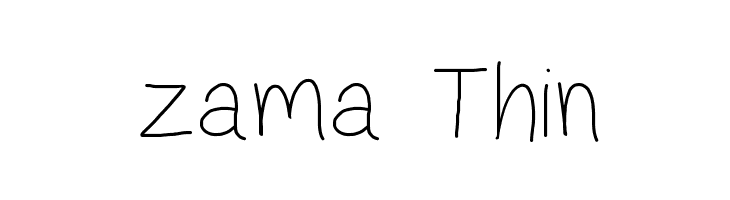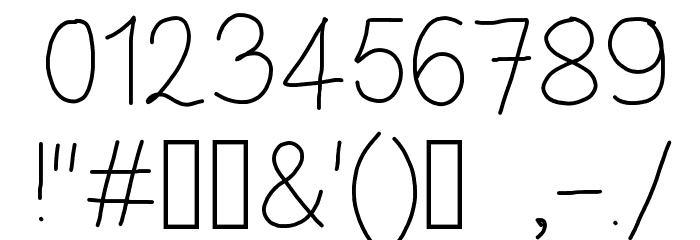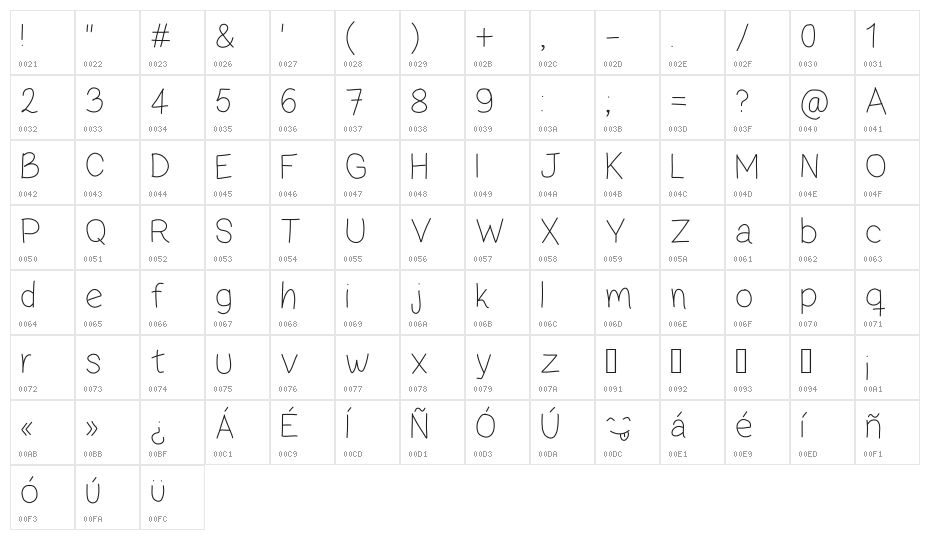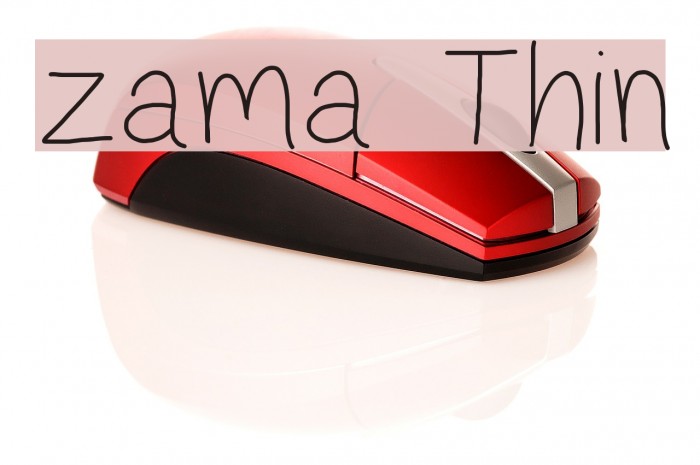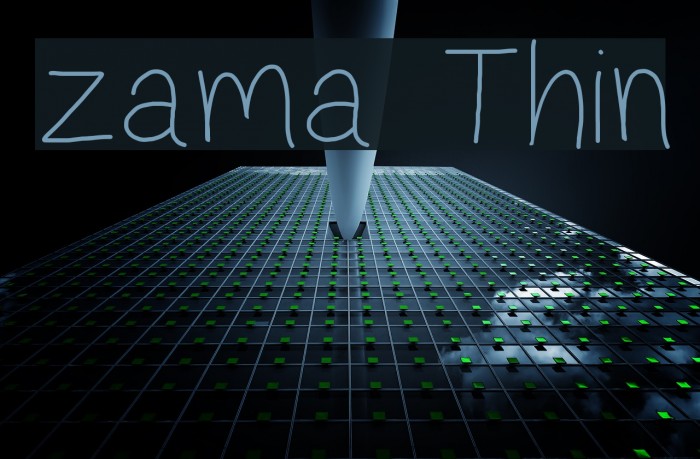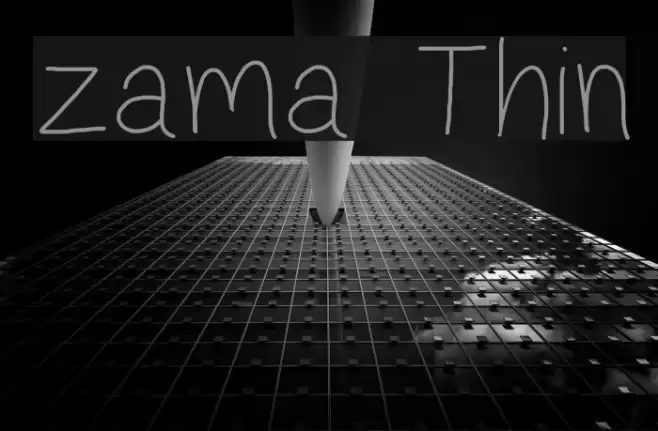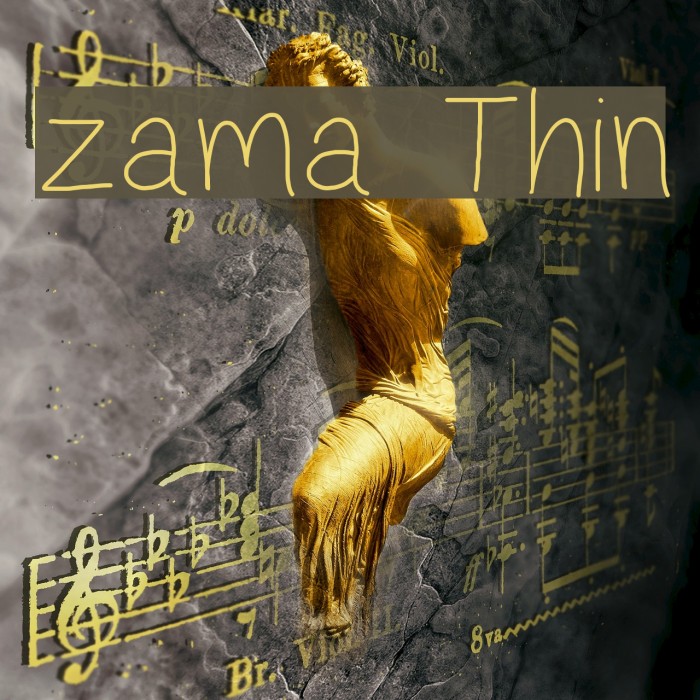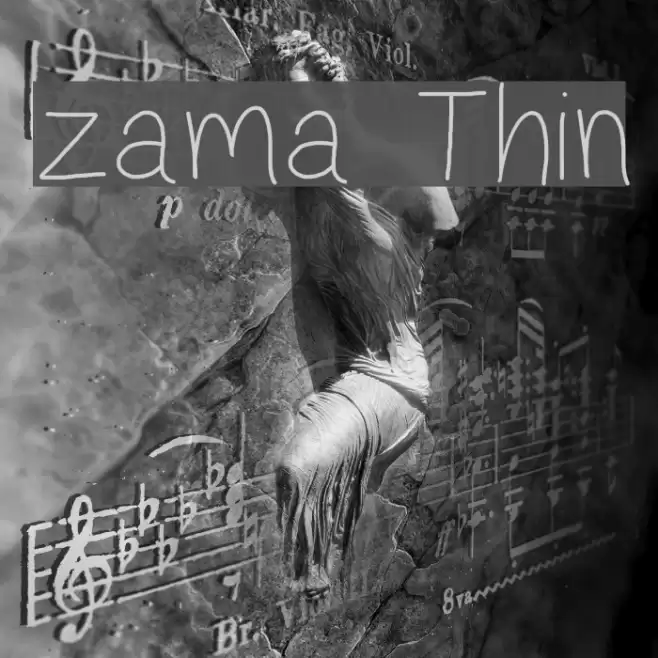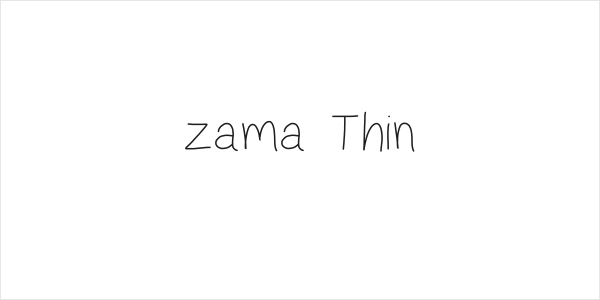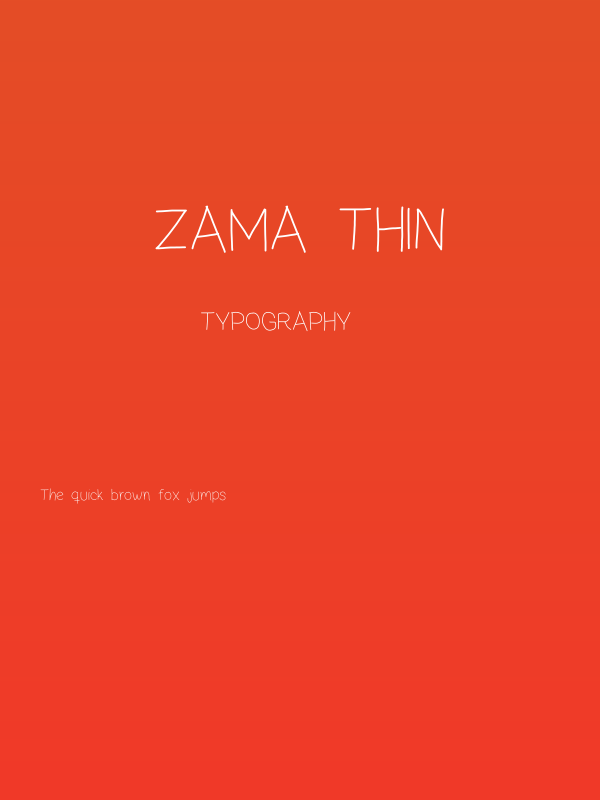
zama Thin Font
zama Thin Description
This font features a playful and informal handwritten style, characterized by its thin strokes and slightly irregular letterforms. The uppercase and lowercase letters maintain a consistent height, giving it a uniform appearance despite its casual nature. The numerals and special characters follow the same thin, hand-drawn aesthetic, making it suitable for projects that require a personal touch. The overall design is clean and legible, with a slight whimsical flair that adds character without compromising readability.
| Use Case | Headlines, Informal text, Personal projects |
| Proposed Projects | Ideal for greeting cards, children's books, casual invitations, and personal branding projects. |